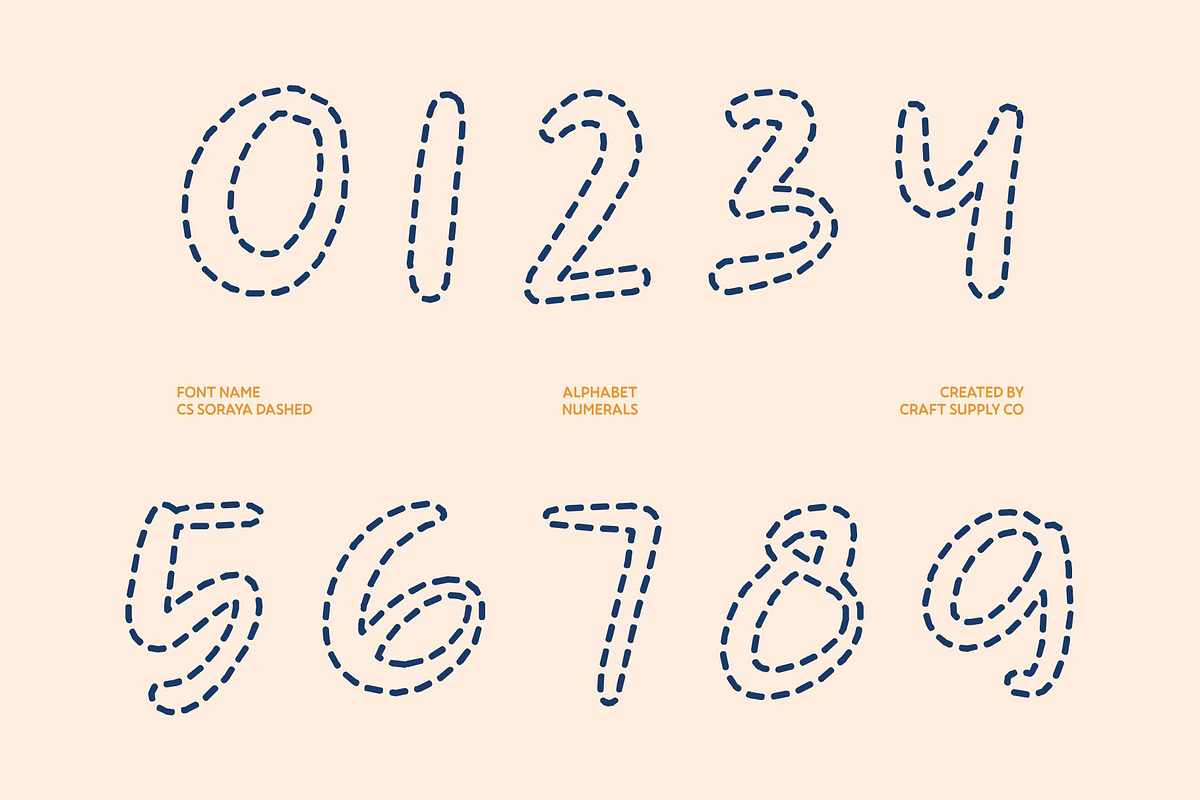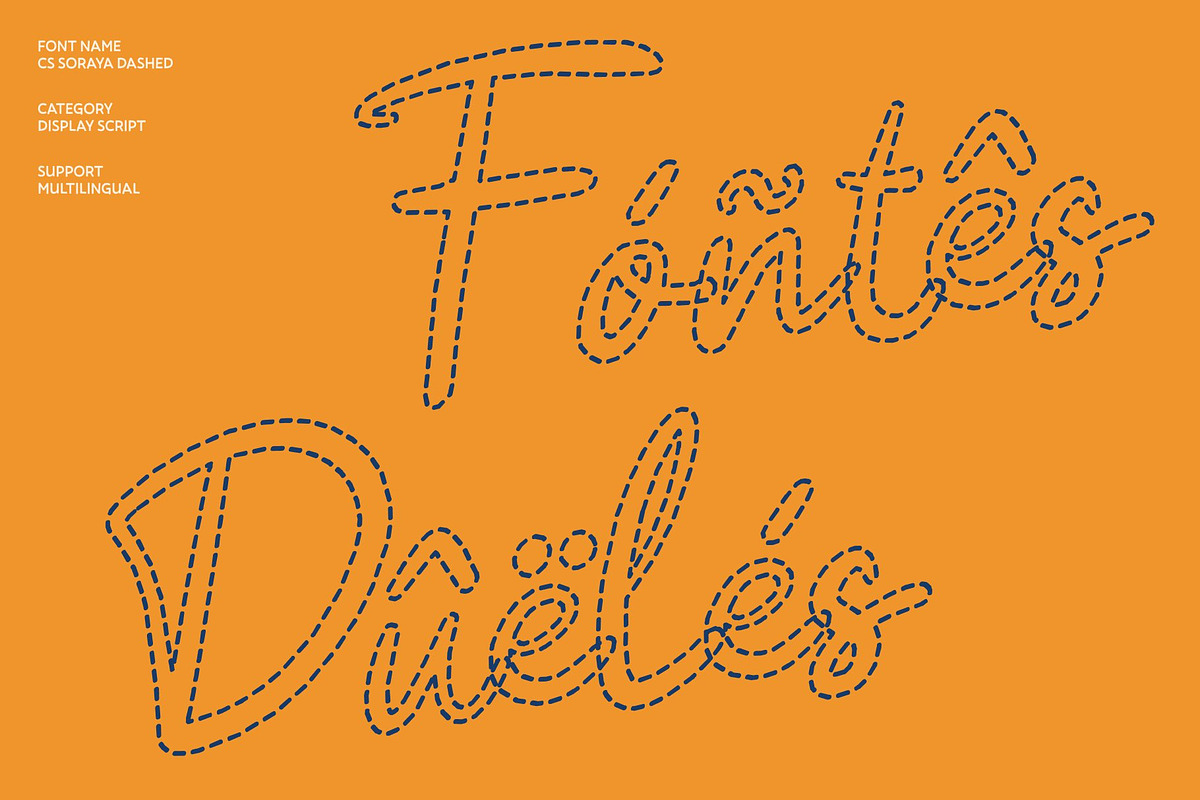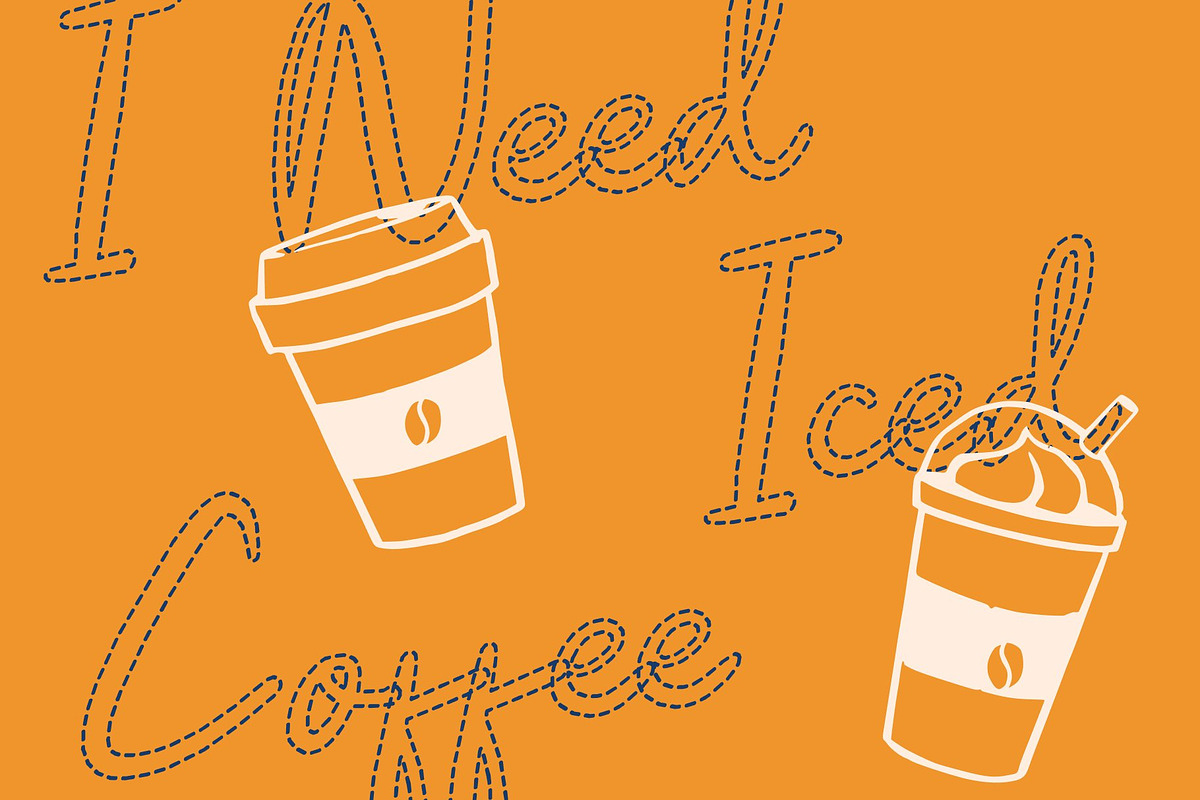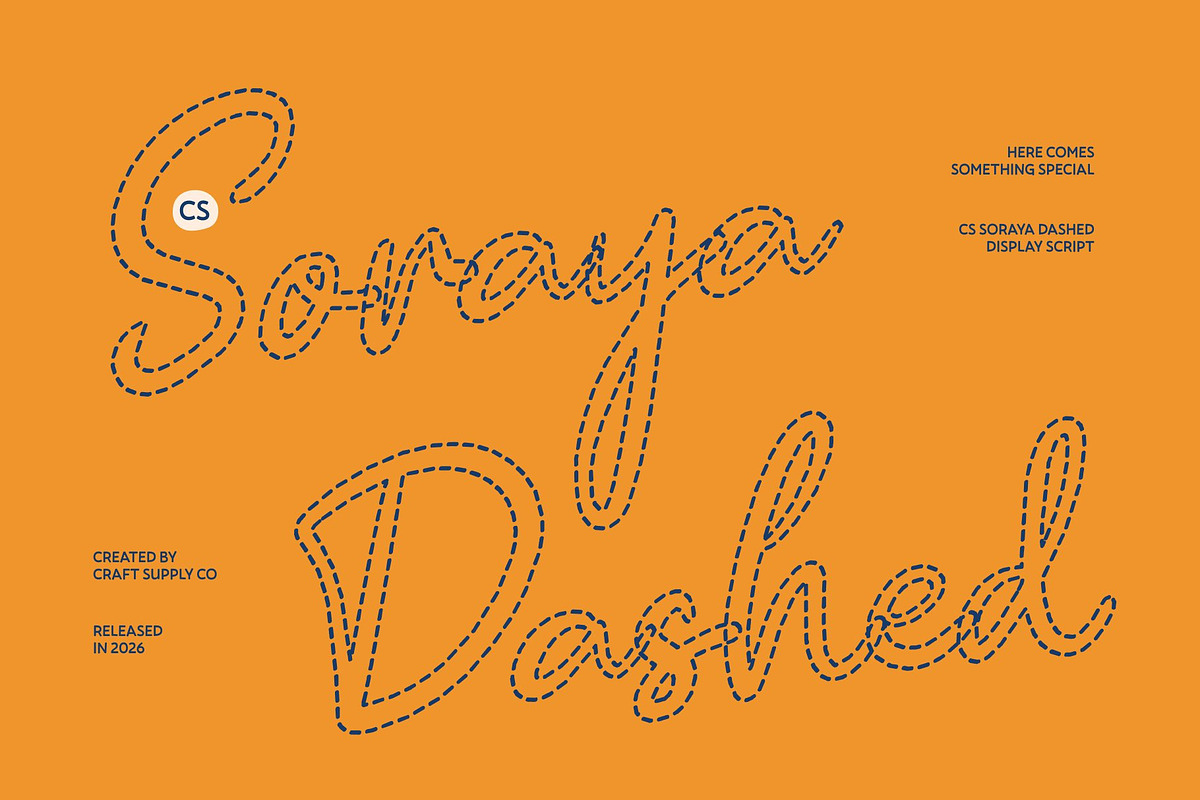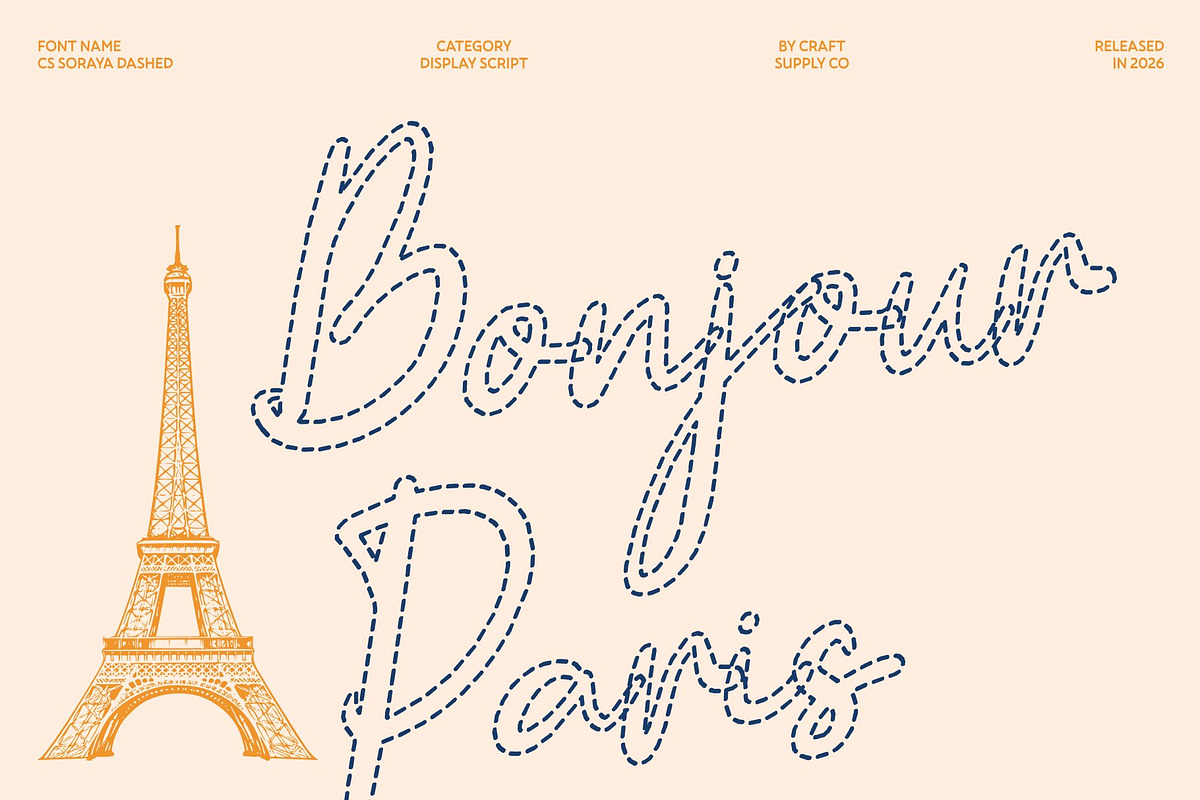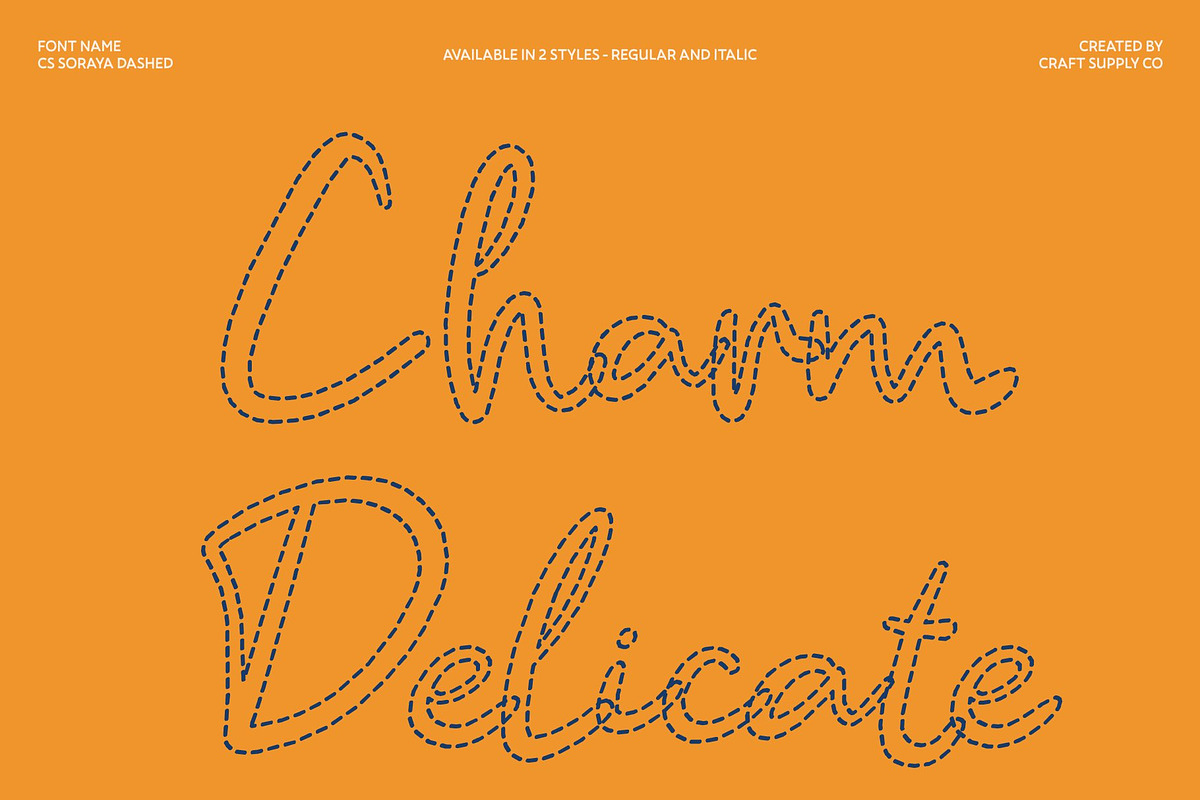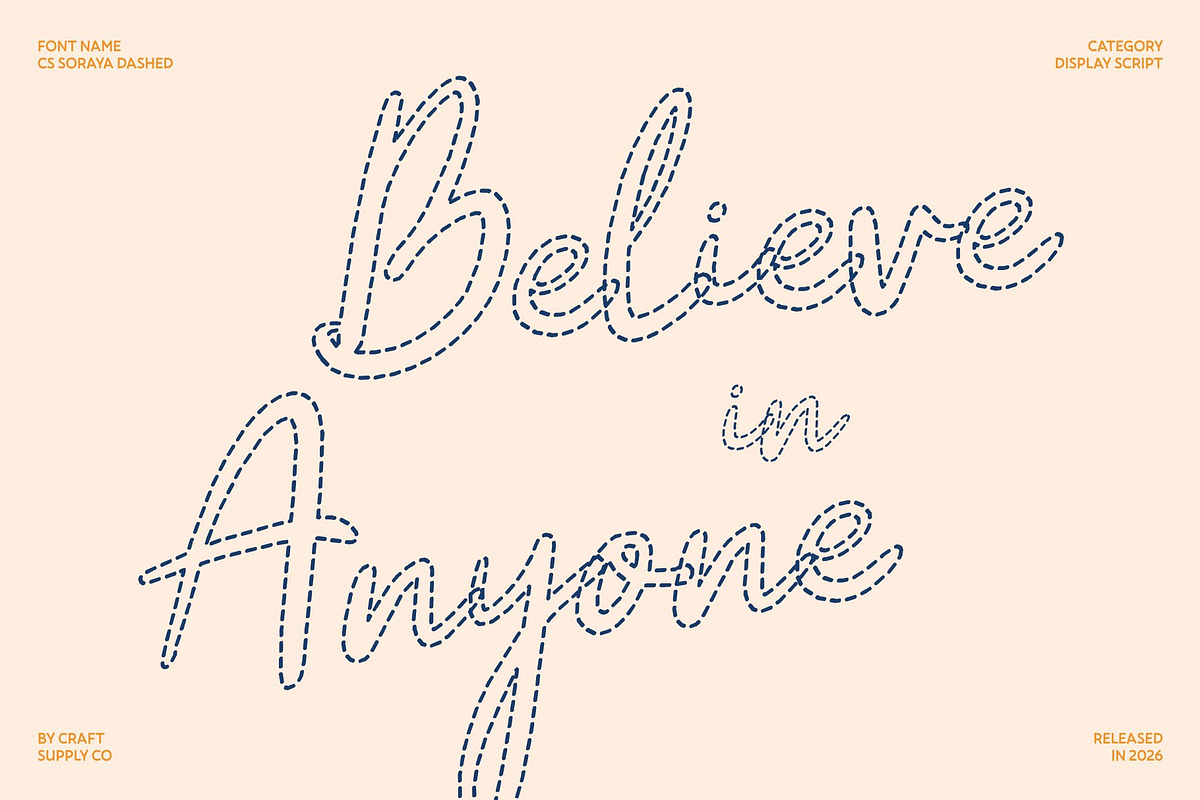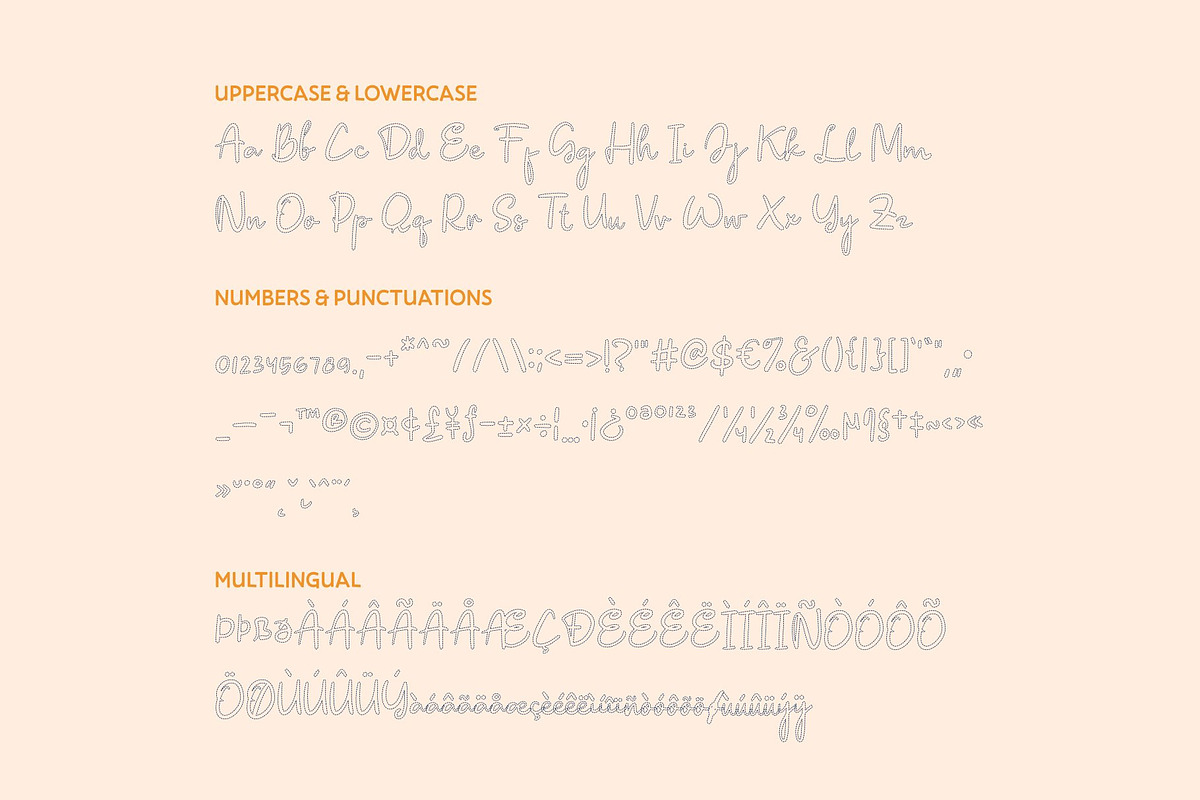
CS Soraya Dashed
CS Soraya Dashed – Carefree Vacation Vibes in Script Form
Vacay Script Font with Relaxed Holiday Spirit This is a carefree vacation script font designed to capture the joyful energy of travel, sunny days, and laid-back lifestyles. The dashed stroke style transforms flowing script lines into playful broken paths, giving the font a breezy, hand-drawn character that instantly communicates freedom, fun, and positivity.
Smooth Curves with Cool, Casual Personality Its smooth curves and fluid connections create a relaxed rhythm that feels spontaneous and friendly. The dashed structure softens the letterforms, adding a light and airy quality that enhances the casual, approachable mood while keeping the text clear and readable.
Relaxed Expression for Lifestyle and Event Designs This font shines in designs that celebrate ease and enjoyment. Its vacation-inspired flow adds warmth and personality to headlines, quotes, and accent typography, helping layouts feel lively and expressive without overwhelming the composition.
Perfect for Social Media, Branding, and Events Ideal for social media graphics, travel branding, summer campaigns, event promotions, packaging, and café visuals, this font brings a sunny and optimistic vibe to every project. It’s the perfect choice for designers who want typography that feels fun, relaxed, and full of wanderlust charm.
CS Soraya Dashed Regular
CS Soraya Dashed Italic